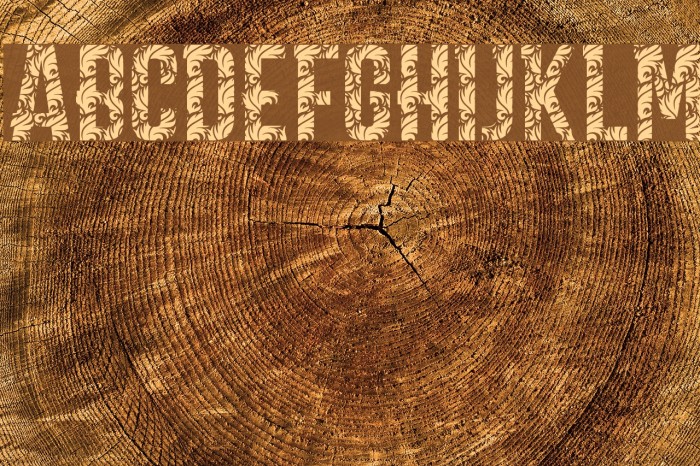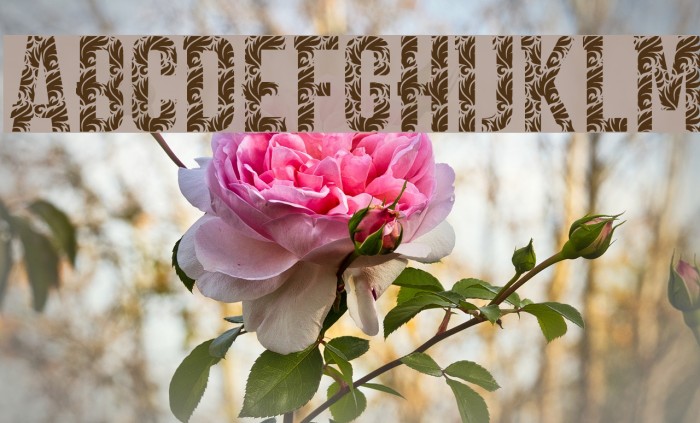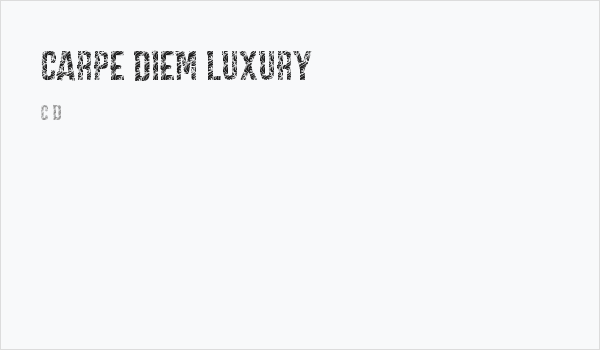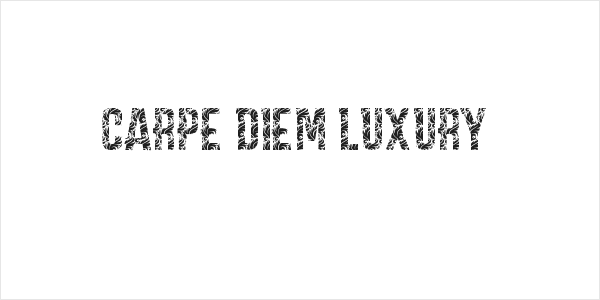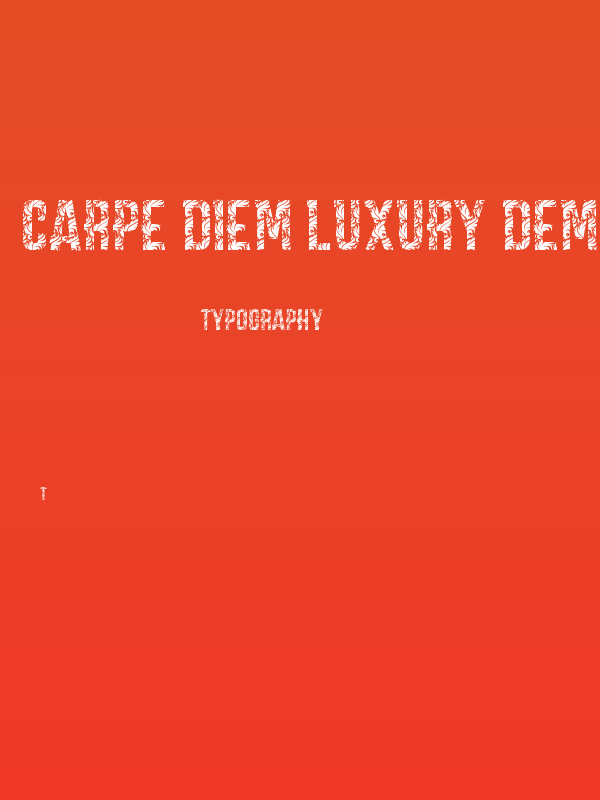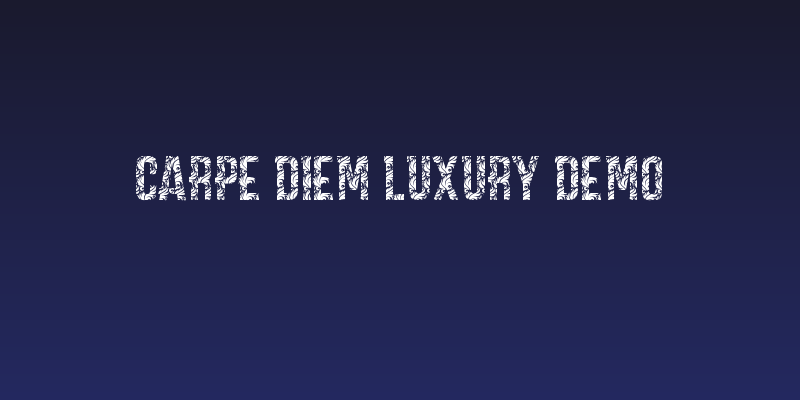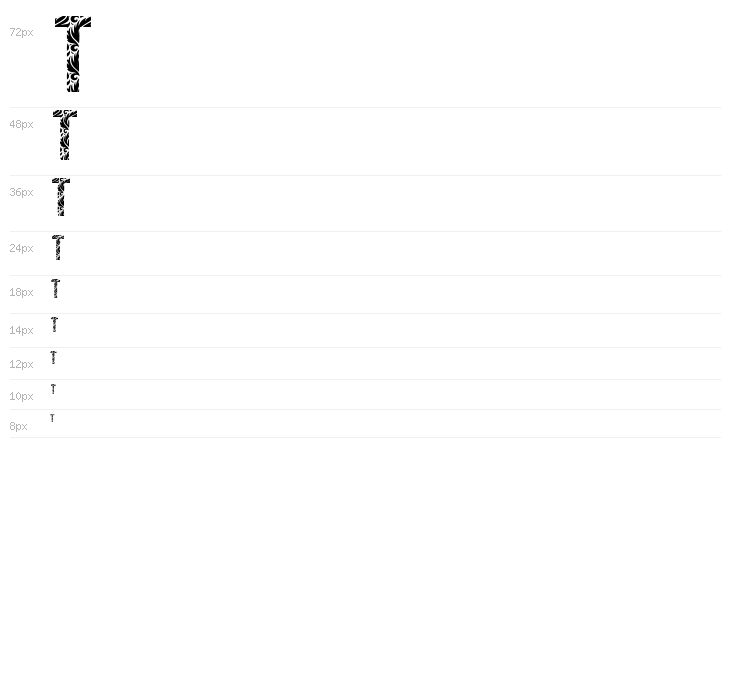
CARPE DIEM LUXURY demo Font
CARPE DIEM LUXURY demo Description
This font features an intricate and decorative design, with each character adorned with elaborate floral patterns. The uppercase letters are bold and striking, making a strong visual impact. The ornate detailing within each letter gives it a luxurious and sophisticated appearance, suitable for high-end branding or artistic projects. The font's unique style is reminiscent of classic decorative motifs, yet it maintains a modern edge through its bold presentation. The intricate patterns create a sense of movement and elegance, making it ideal for projects that require a touch of opulence and creativity.
| Proposed Projects | Ideal for luxury branding, wedding invitations, artistic posters, and decorative headlines. |